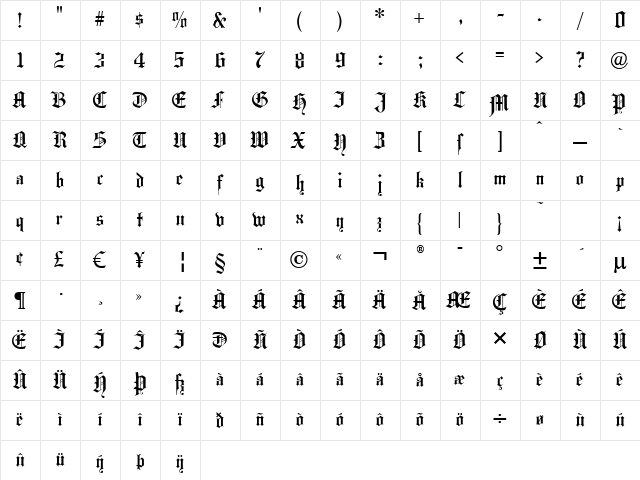
Complete Hansa Gotisch Regular glyph index. Displaying only characters natively supported by Hansa Gotisch Regular font.
Hansa Gotisch is a composed and adaptable typeface that performs quietly and consistently across a wide range of design contexts.